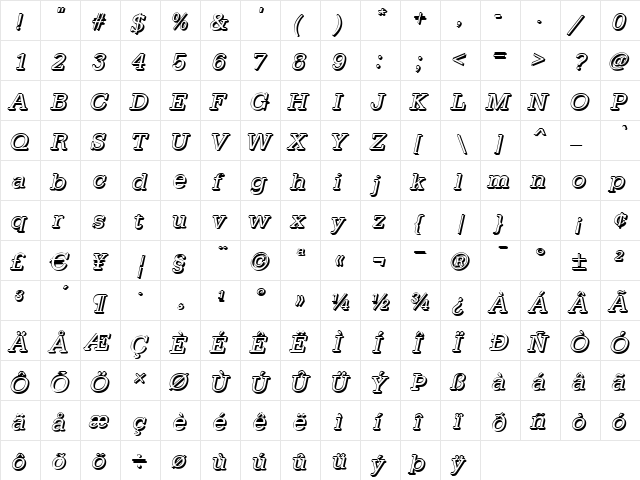
AstridBeckerShadow Italic
Design Context for AstridBeckerShadow Typeface
AstridBeckerShadow is built around its visual character rather than neutral utility — its distinctive forms are designed to make an impression at display sizes. The slanted form adds forward momentum and visual energy.
Font Pairing: Pair with a clean neutral sans-serif for body copy to let AstridBeckerShadow's character lead without overwhelming the composition.
Pro Tip: Treat AstridBeckerShadow as the centrepiece of your typographic hierarchy. One strong heading set in a decorative face can carry an entire layout.